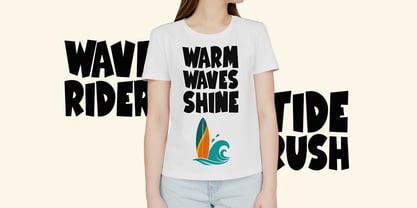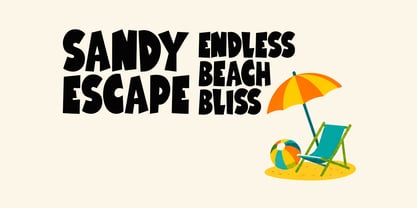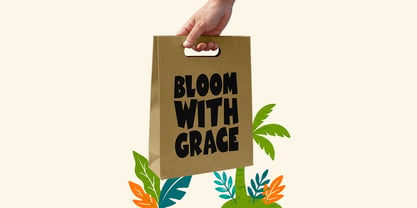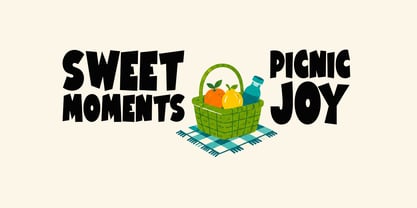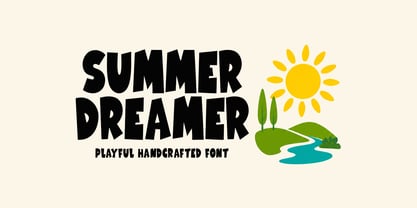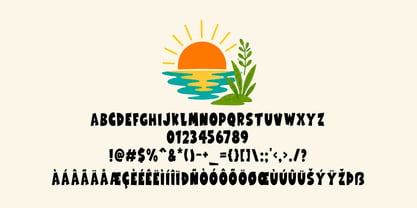
Summer Dreamer
Die Schriftfamilie Summer Dreamer wurde von Md. Sohail Bhuiyan entworfen und von Seemly Fonts veröffentlicht. Summer Dreamer enthält 1 Stile. Mehr über diese Familie
Summer Dreamer is a bold, chunky display font inspired by warm sunshine, soft breezes, and dreamy summer vibes. It features thick, playful shapes that give every letter a strong yet fun personality. This font is perfect for branding, posters, quotes, logos, packaging, and social media designs. It brings a fresh, happy, and youthful summer feeling to any creative project.
Designer: Md. Sohail Bhuiyan
Foundry: Seemly Fonts